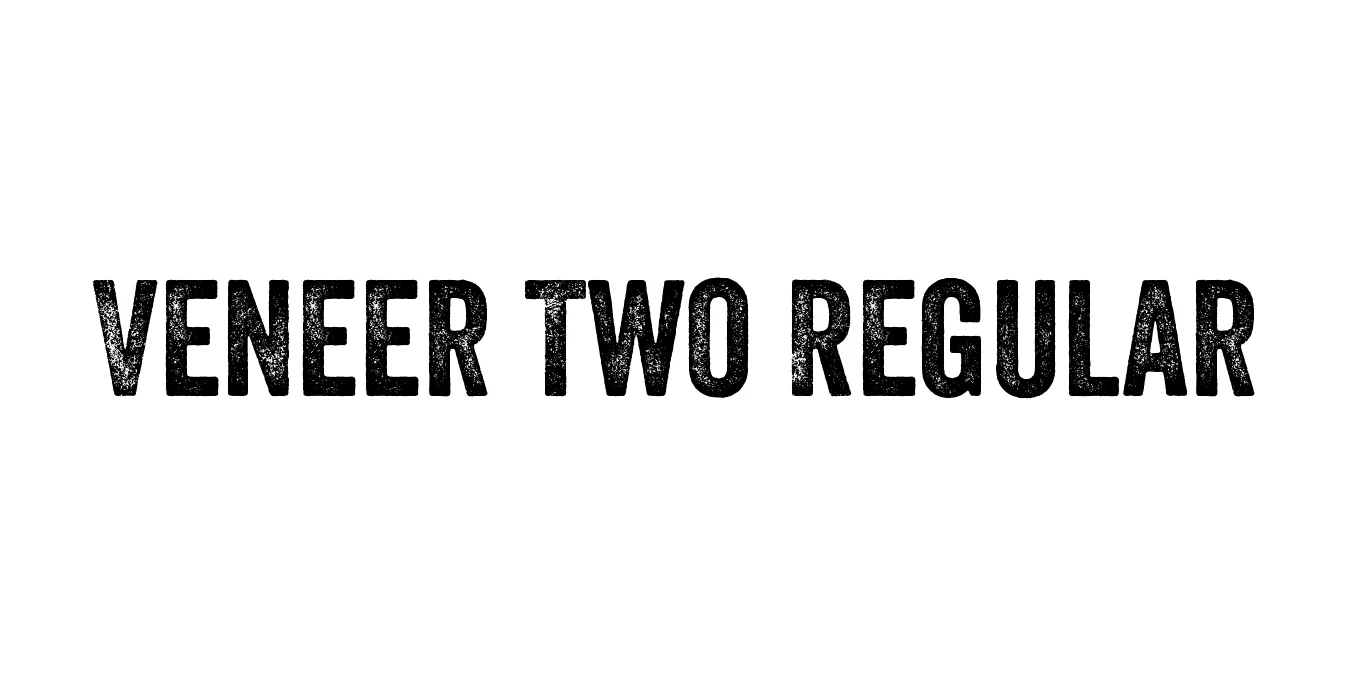
Veneer Two Regular
Designed by Ryan Martinson
Veneer Two Regular is a member of the highly acclaimed Veneer family created by Yellow Design Studio. It is a high-resolution, hand-crafted letterpress font that captures the authentic imperfections of vintage printing. Unlike standard digital fonts, Veneer provides a rugged, distressed aesthetic with an incredible level of detail that remains sharp even at very large display sizes, making it a favorite for designers seeking a tactile, heritage-inspired feel.
The 'Two' weight specifically offers a distinct level of distress and texture that differs from the other weights in the set, allowing for a varied and natural appearance when used in combination. This font is widely recognized for its ability to bring a warm, human element to digital designs, effectively bridging the gap between modern clean lines and old-world craftsmanship.
Veneer Two Regular Best Uses
Excellent for creating artisanal logos and rugged brand identities.
Perfect for high-impact, vintage-style headlines and event flyers.
Ideal for craft beverages, organic food products, and heritage-focused goods.
Works great for t-shirt designs and garment labels requiring a weathered look.